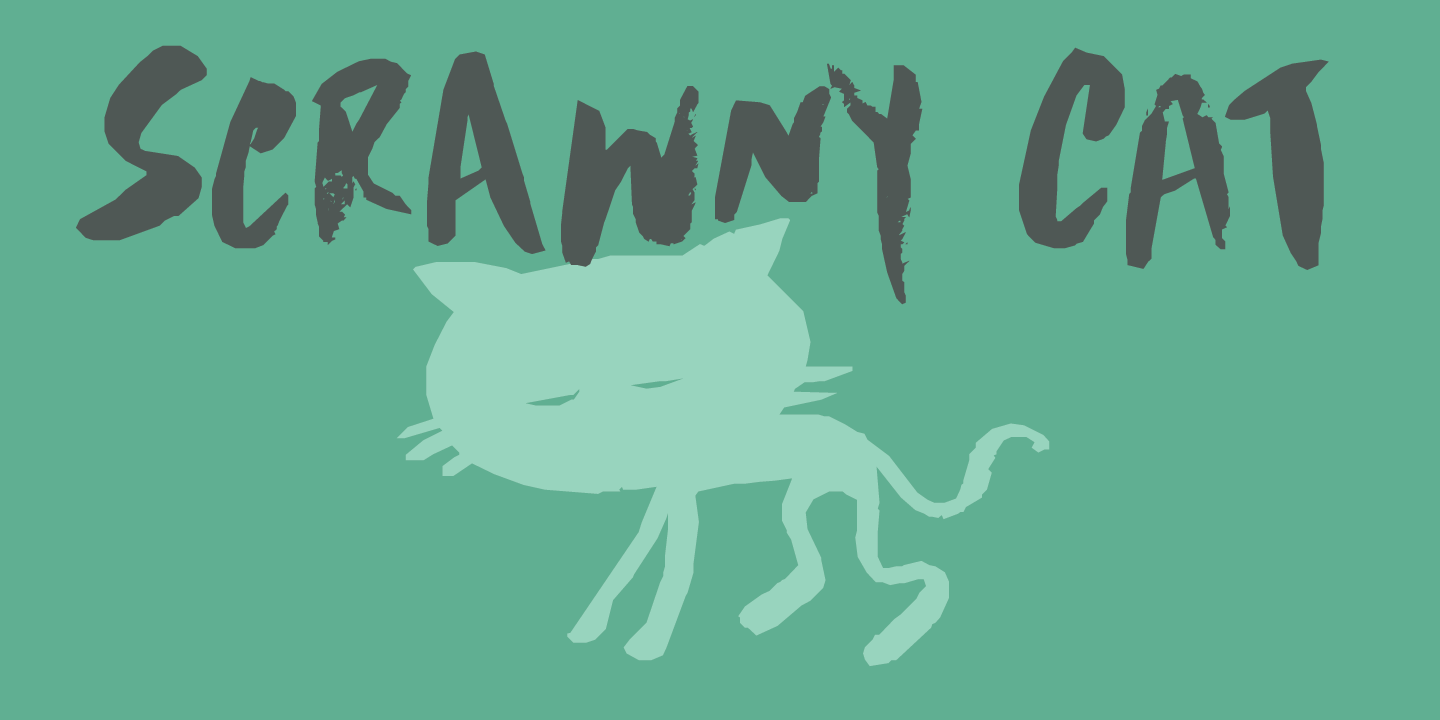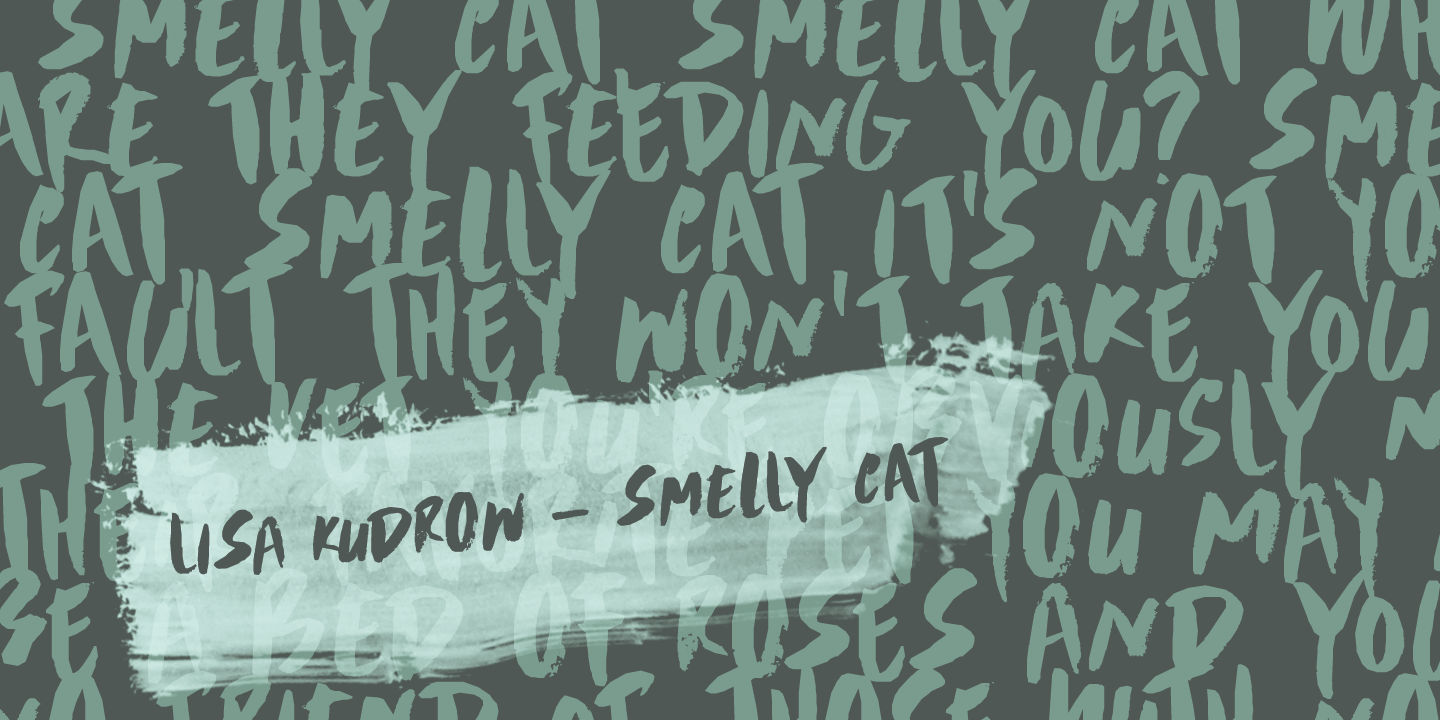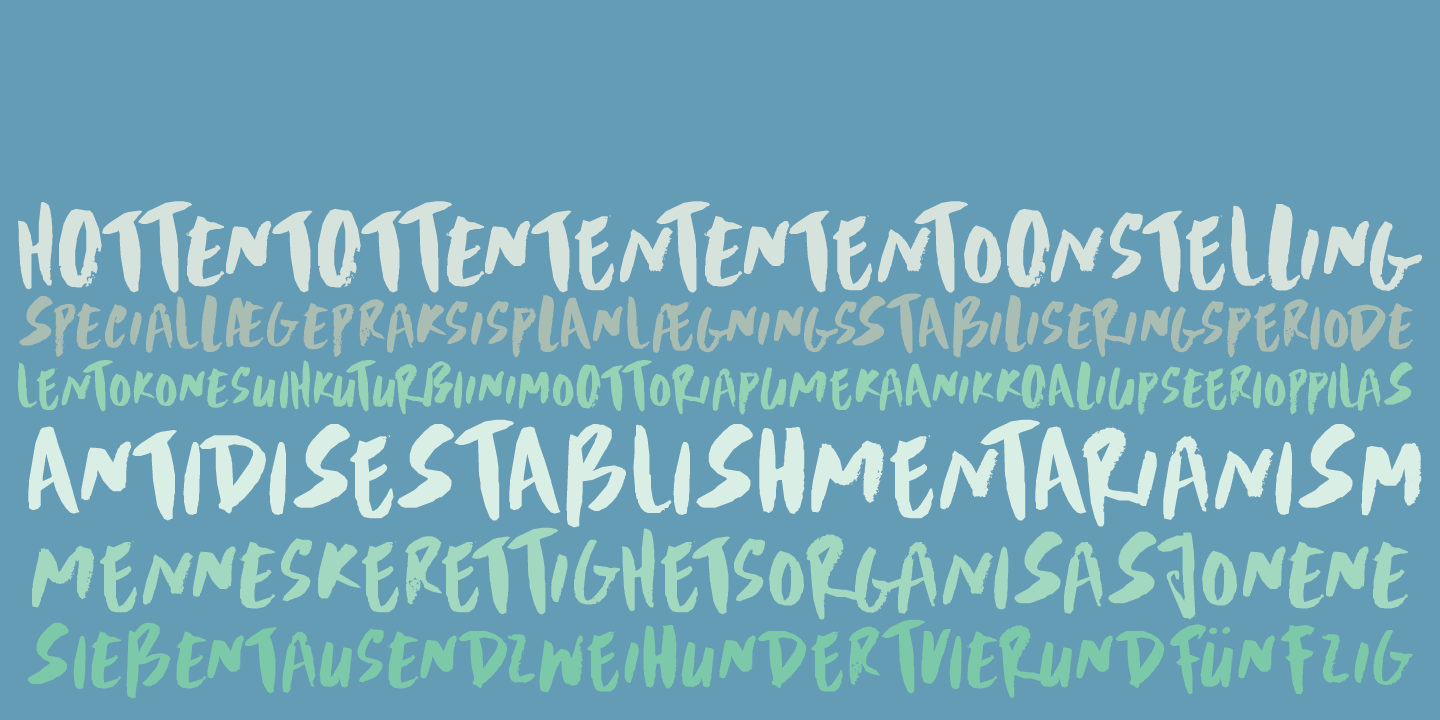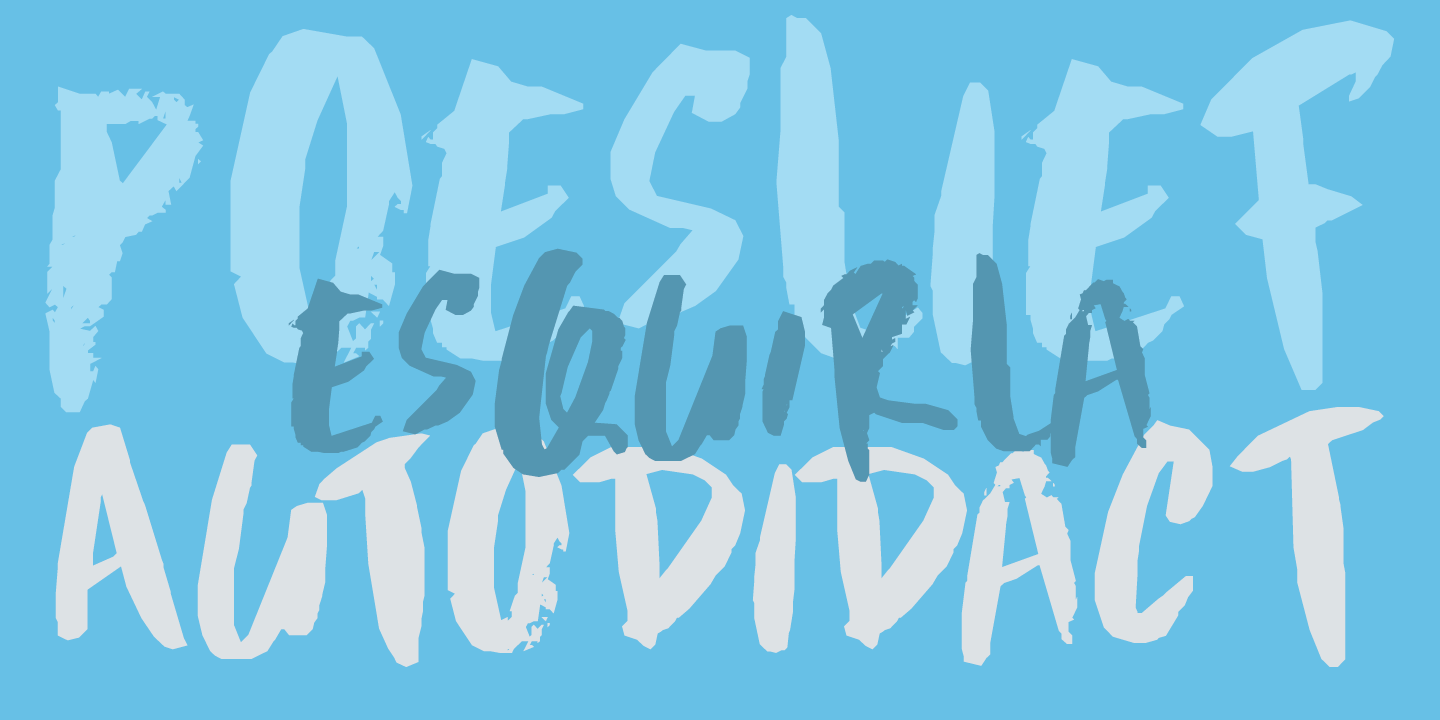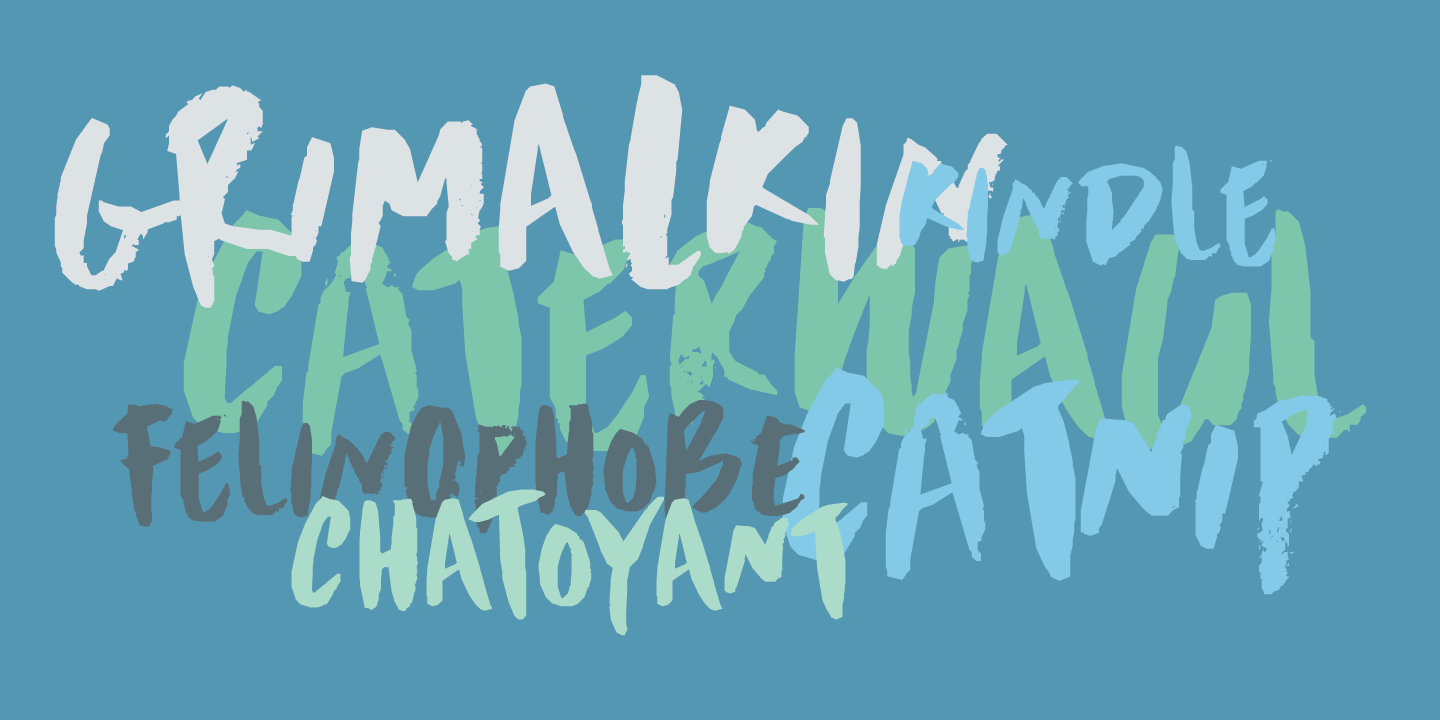
Scrawny Cat
Scrawny Cat is a bit of an unusual font: it was made with a brush and some China ink and has no real baseline. It is messy yet legible and in a strange way beautiful. The font is all caps, but upper and lower case differ and can be freely interchanged. Comes with a litter of diacritics and some cool end-ligatures to boot.
Scrawny Cat by Hanoded